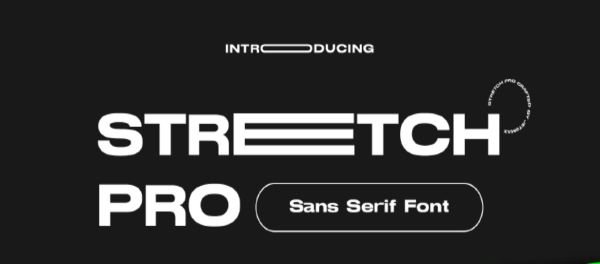
Stretch Pro Font by Jetsmax Studio is a bold, expanded sans-serif that knows exactly what it is and leans into it without apology. Its wide letterforms and clean geometric construction create a visual presence that fills space confidently and commands attention at any size.
Designer: Jetsmax Studio
Style: Sans Serif, Wide, Bold, Display